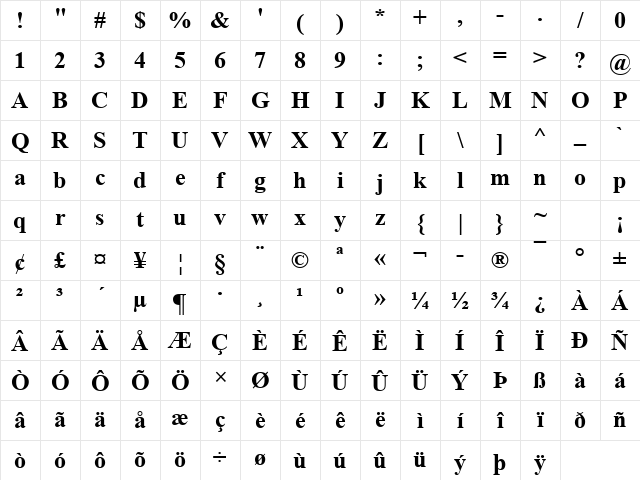
Complete Times New Roman Bold glyph index. Displaying only characters natively supported by Times New Roman Bold font.
Times New Roman is a composed and adaptable typeface that performs quietly and consistently across a wide range of design contexts. Its bold stroke weight gives it real presence on the page.
Who designed the Times New Roman Bold font?